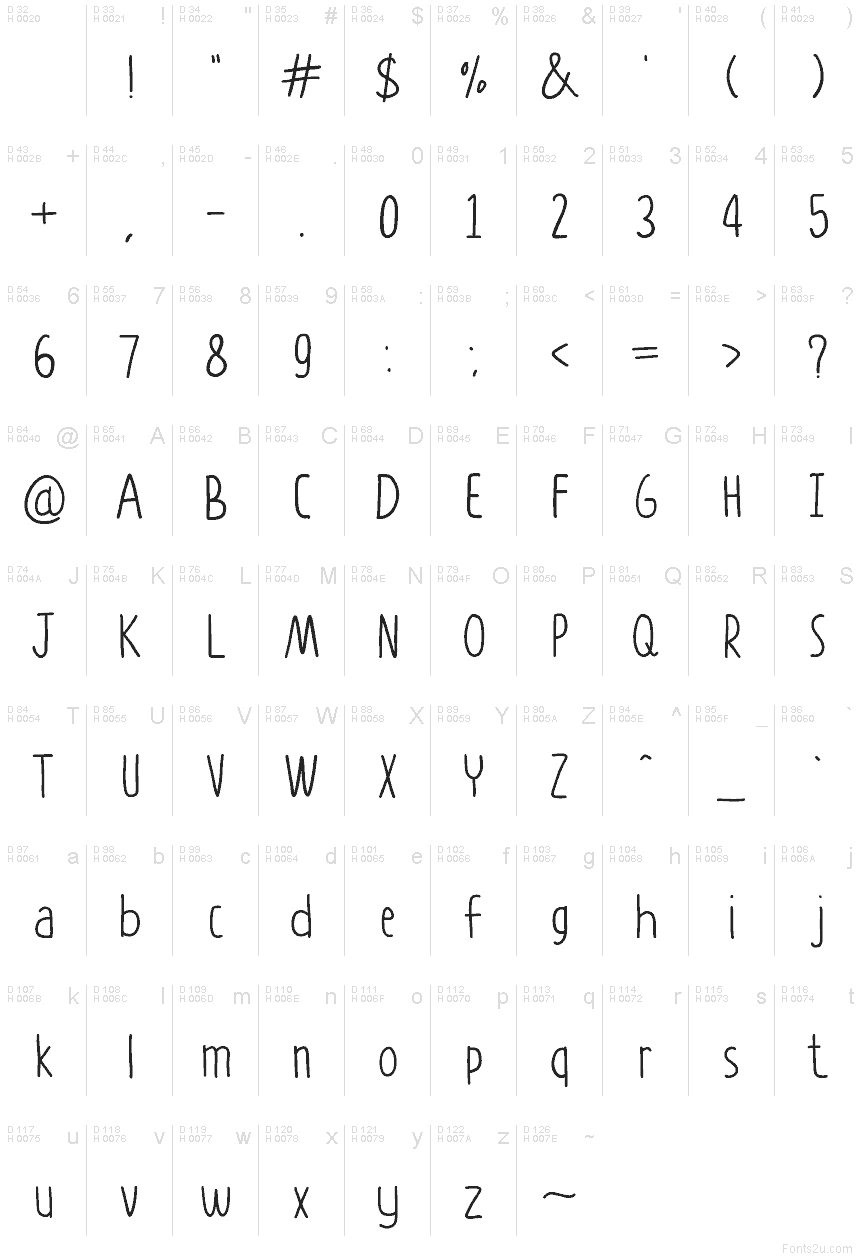
Sketch Paper
Sketch Paper font by Origin Type is a free handwritten font that embodies a naturalistic, casual, and hand-drawn feel. Featuring a light weight and condensed width, it has an approachable look with an artistic vibe. Its textured finish also adds to its authentic appearance as the font mimics handwriting very well.
The typeface is suitable for branding designs in cafes, bars, or wellness centers where the personal touch can help improve credibility. It can work nicely in attractive logos of beauty brands or luxurious packaging of perfumes and body care items. Use it to add finesse to tattoo shop visuals, promotional posters of upcoming product launches, stickers printing preparation files, social media posts addressing customers directly as part of sales campaigns etc.